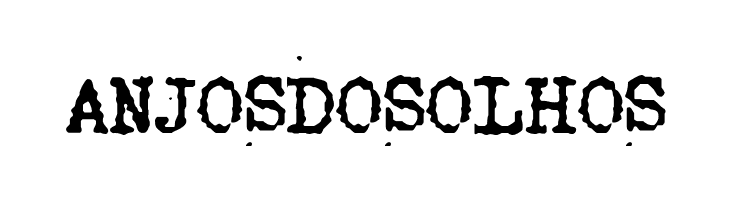
Moderno Font
- Font: Moderno
( Fonts by Johan Holmdahl - www.free-typewriter-fonts.com )
A vintage, typewriter-style font with a distressed, handcrafted look.